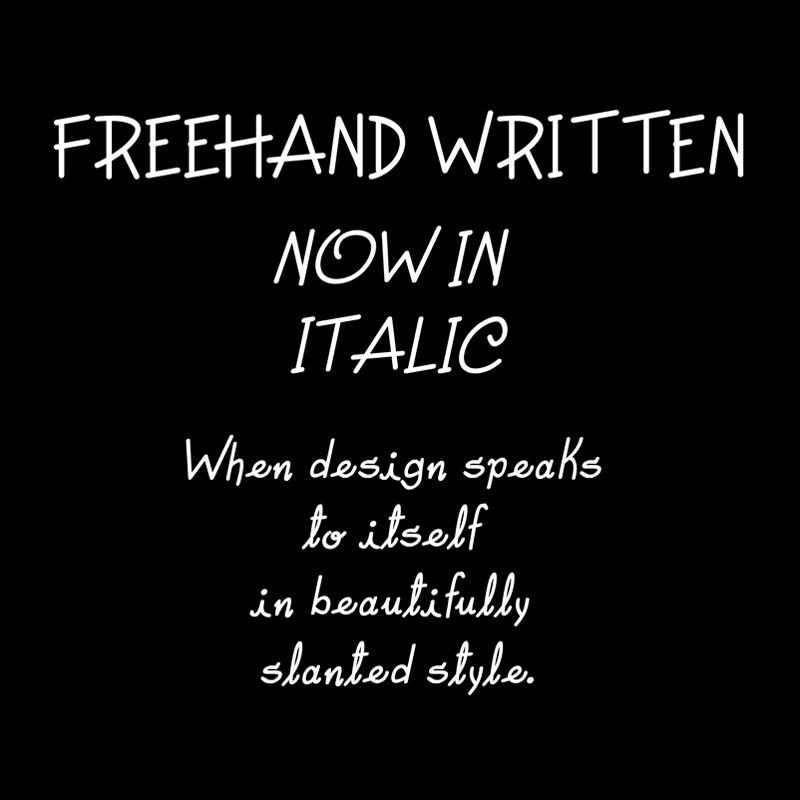
Freehand Written Italic
Freehand Written Italic font by Galdino Otten Fonts is a compact handwritten font that creates a casual atmosphere with its natural modern look. Its friendly strokes clearly connect one letter to the other while being topped off by round and compact letter shapes that make each angle, curve, or bowl stand out.
Use this free handwritten font for invitations and greeting cards, designs dedicated to holidays and special occasions, signature packaging posters, stationery projects including business cards and envelopes as well as branding projects. A happy little font like this always relates well to logotypes!